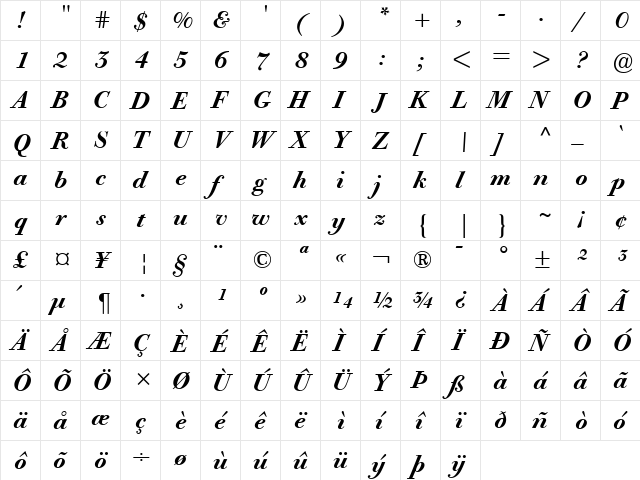
Bodoni Old Face BE ItalicBold
Design Context for Bodoni Old Face BE Typeface
Bodoni Old Face BE is a composed and adaptable typeface that performs quietly and consistently across a wide range of design contexts. The dynamic lean of this cut emphasises speed and emphasis in any layout. The heavy weight commands attention and anchors typographic hierarchies.
Pro Tip: Use Bodoni Old Face BE for emphasis, pull quotes, and subheadings where its slanted energy can add rhythm to the layout.